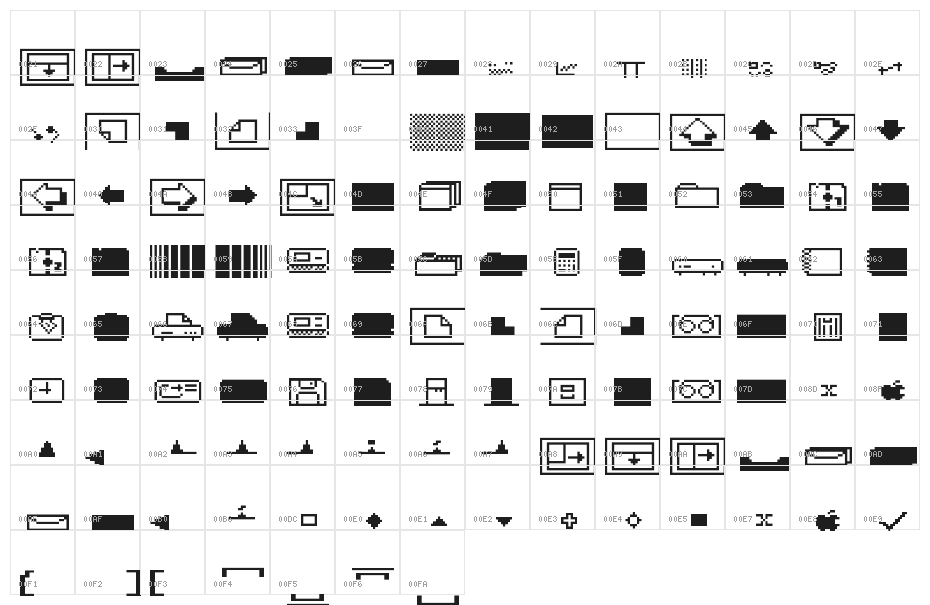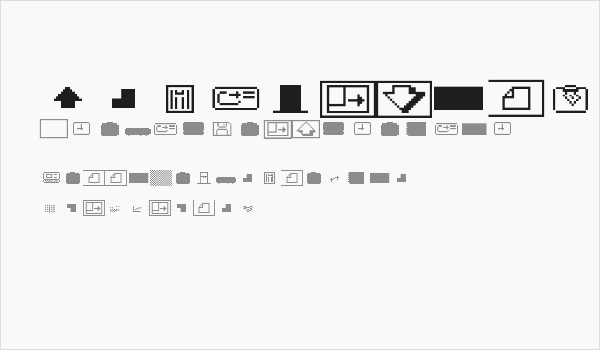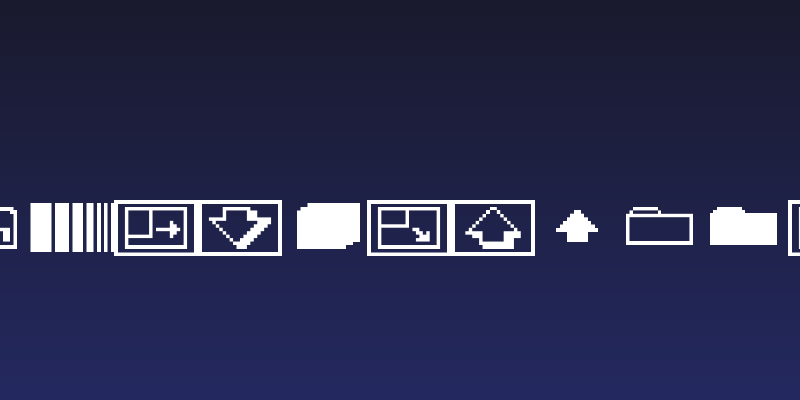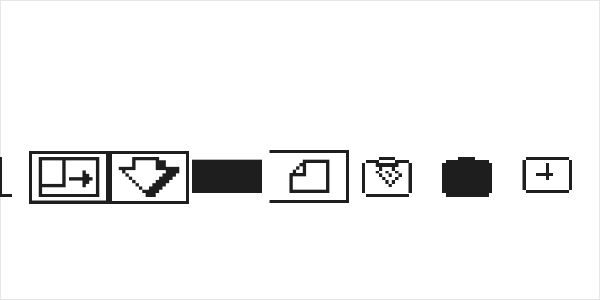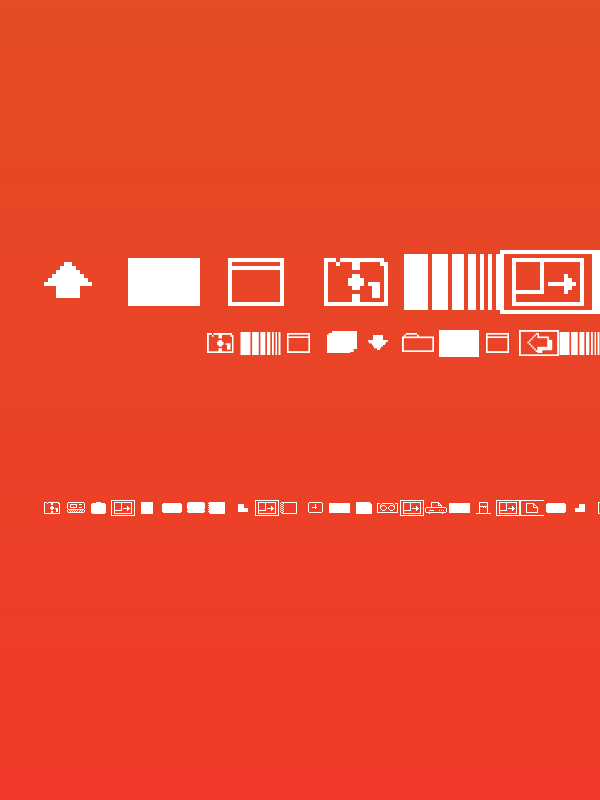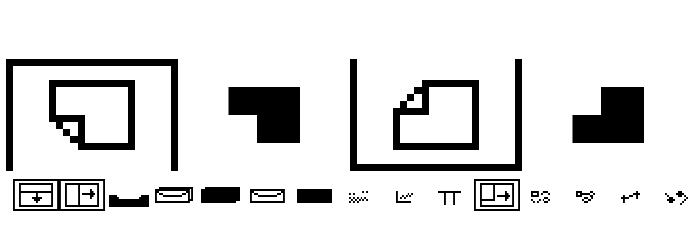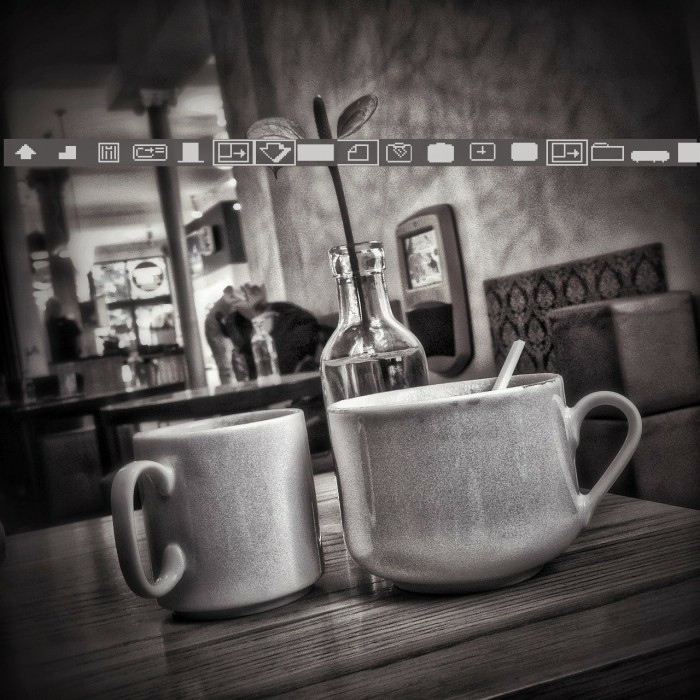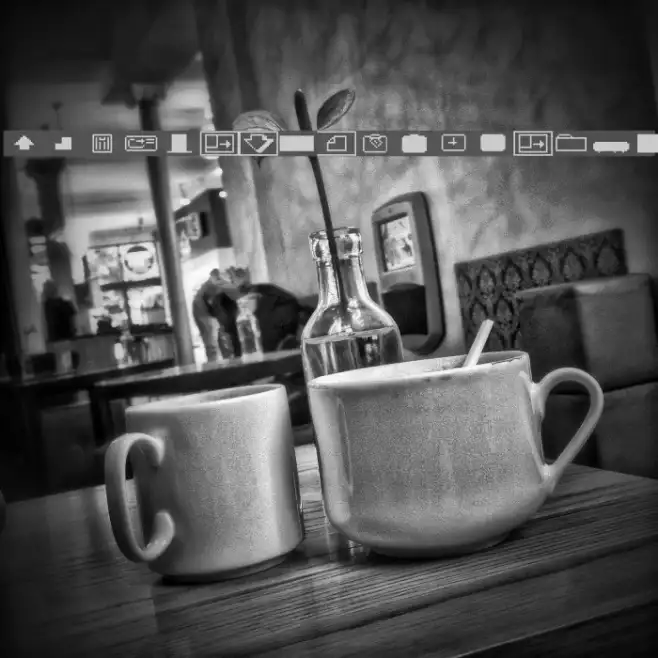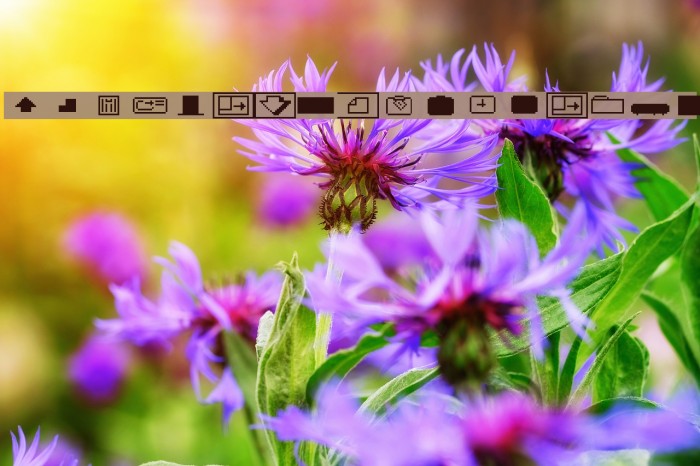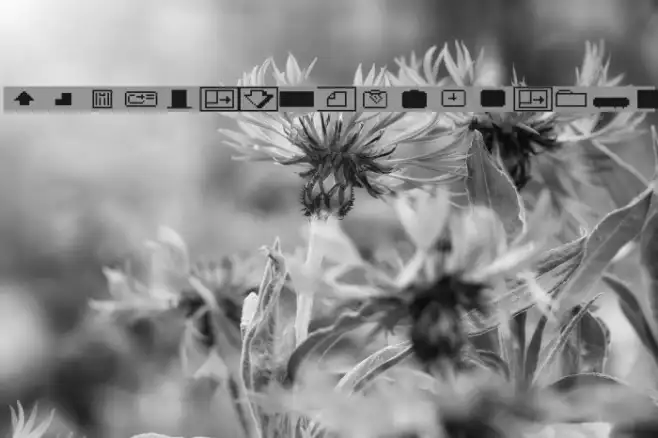
Empty Folders Raw Font
Empty Folders Raw Description
A pictogram-style icon font featuring various folder, file, and interface symbols in a pixelated, monospaced format. The glyphs are constructed with bold, solid lines and minimal detail, evoking a retro computer or early GUI aesthetic. Each character is a distinct icon, not a traditional alphanumeric glyph.
| Overall Style | Retro, Pixel Art, Decorative |
| Use Case | Icons, UI elements, Game design, Decorative headings |
| Proposed Projects | User interface mockups, retro software design, pixel art projects, icon sets, game UI, infographics. |